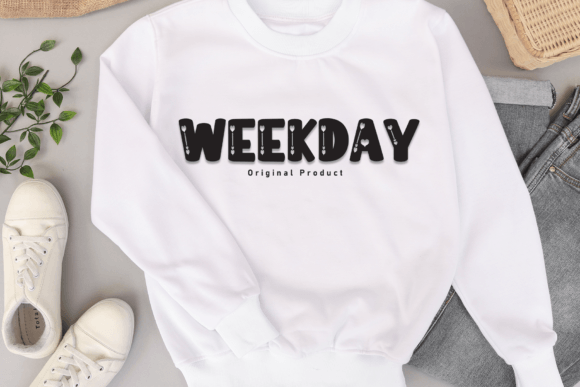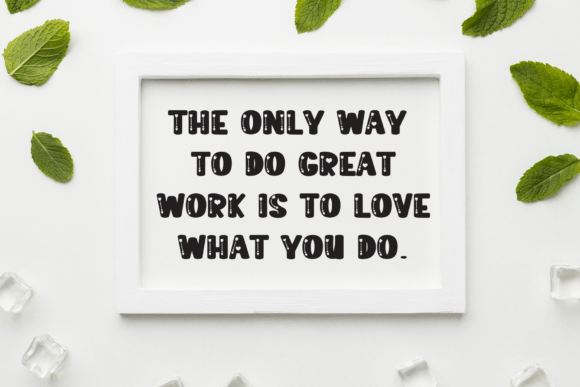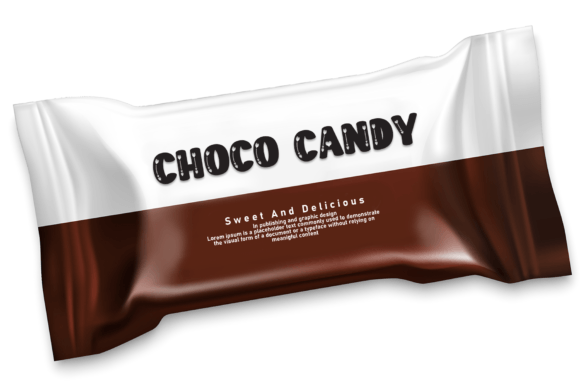
Love Bride Font: Free Download Now
Introduction to Love Bride Font
Love Bride is a playful font that features bold letters decorated with cute hearts inside.
It’s perfect for romantic themes and adds a fun touch to any design .
Key Features of Love Bride Font